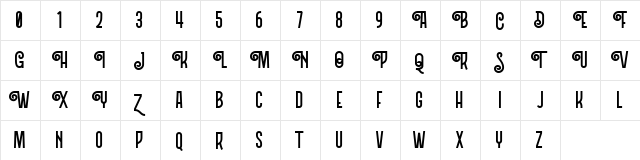
Northern Demo Version Regular Font Preview
Northern Demo Version Regular
Northern Demo Version Regular Font Details
Design Context for Northern Demo Version Typeface
Northern Demo Version offers clean, dependable letterforms without strong stylistic allegiance, making it a practical choice for designers who need flexibility.